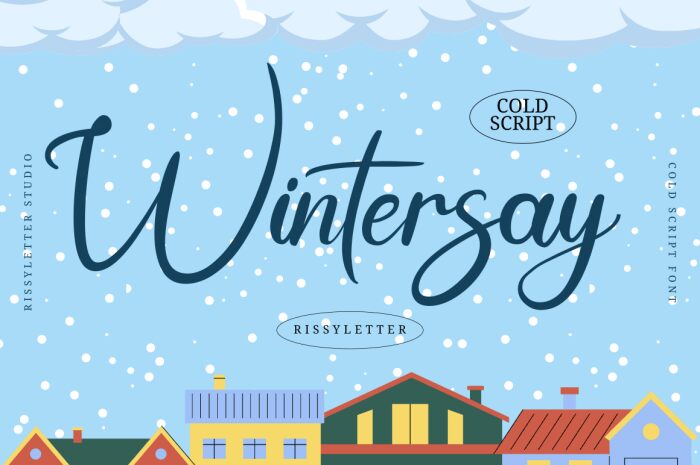
Wintersay
Wintersay font by Rissyletter Studio is a free calligraphy font that beautifully captures the essence of elegant script and natural flow. Its graceful curves and expressive movement create a contemporary flair that stands out, making it an excellent choice for projects that demand sophistication and style.